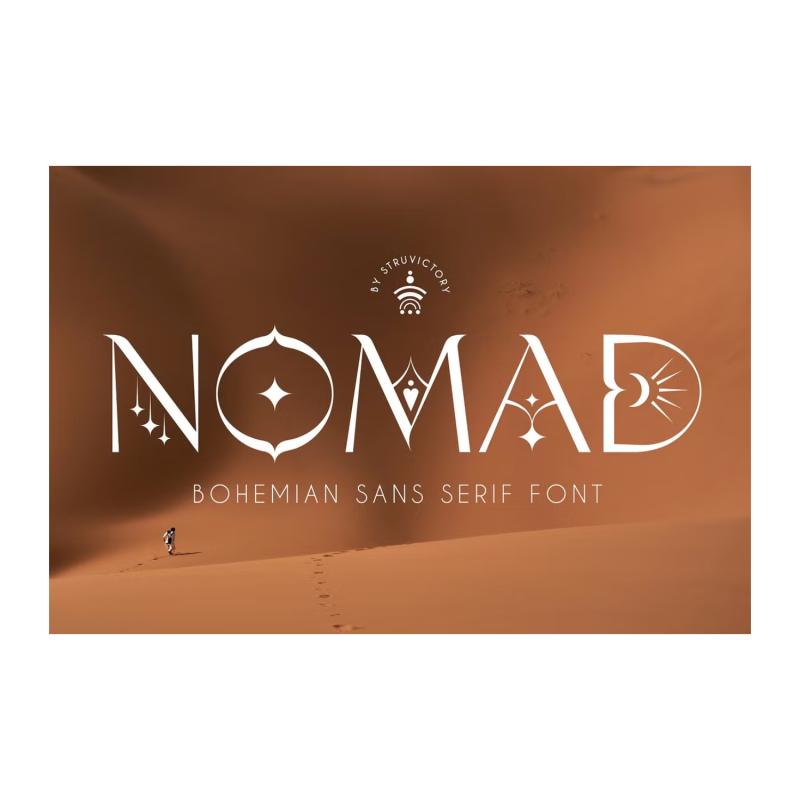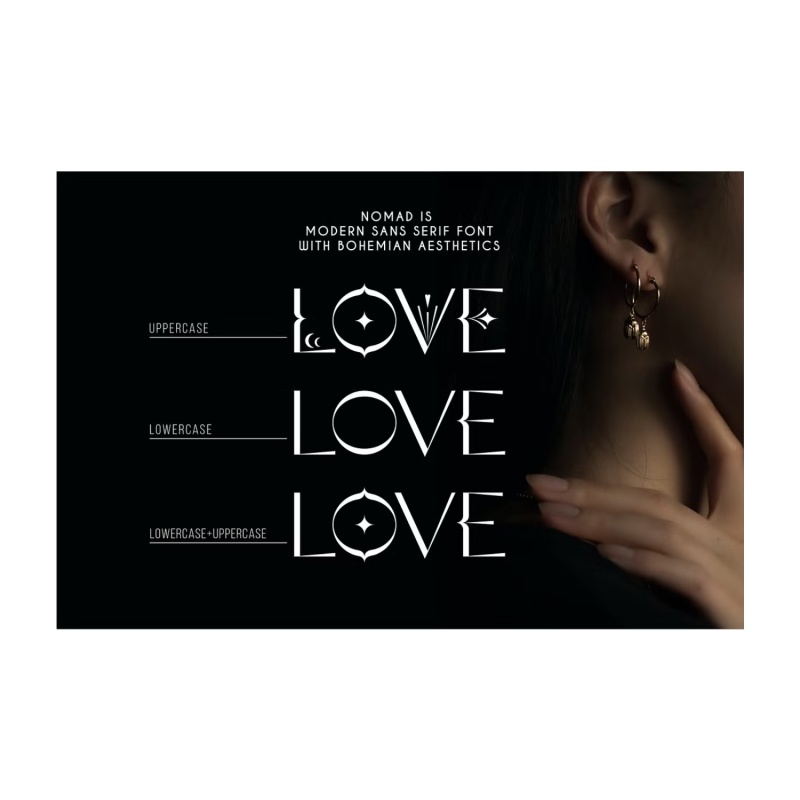
Nomad - Bohemian Sans Serif Font
NOMAD is a modern sans-serif font with bohemian motives. The font is created in classic proportions and decorated with celestial and boho decor. NOMAD is represented by sans serif lowercase and ornate uppercase. The font is suitable for the design on the theme of astrology, mysticism, spirituality, witchcraft, magic, and esotericism.